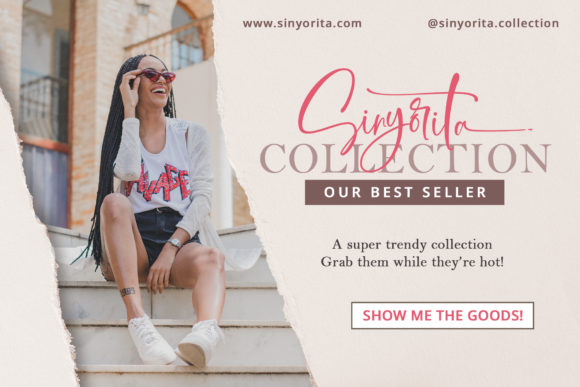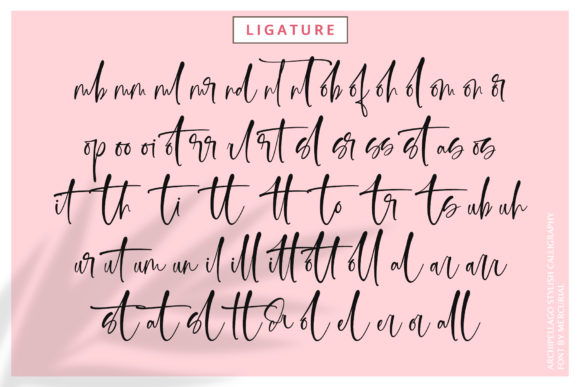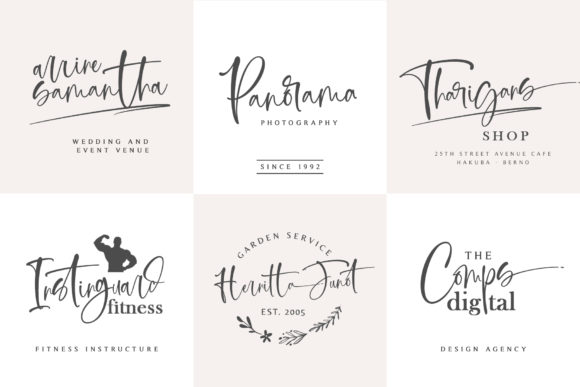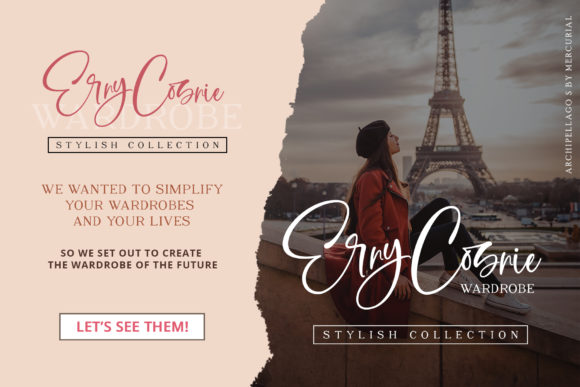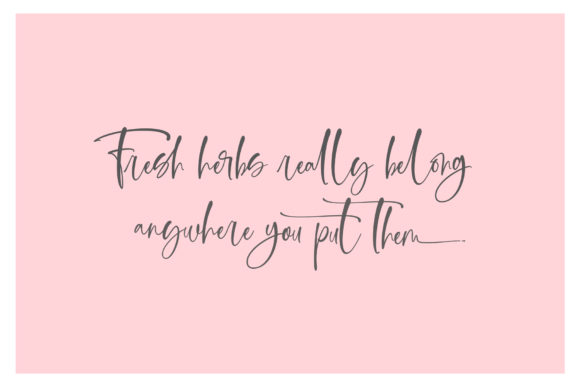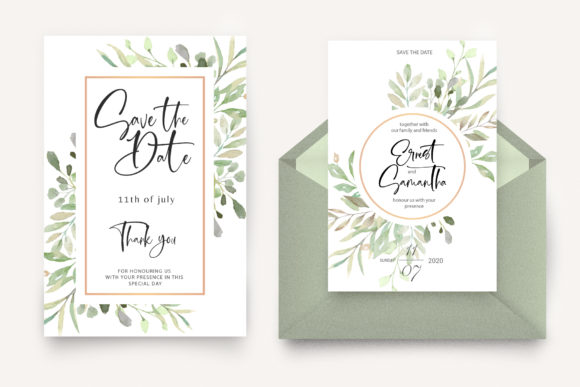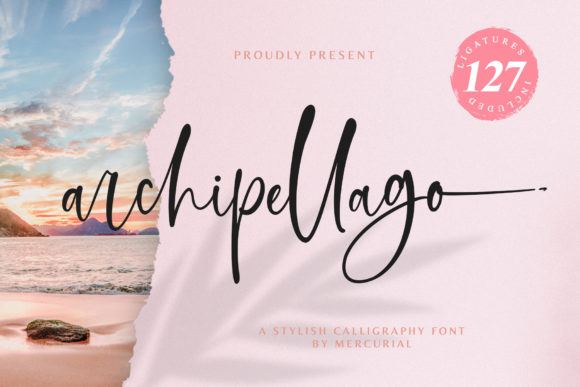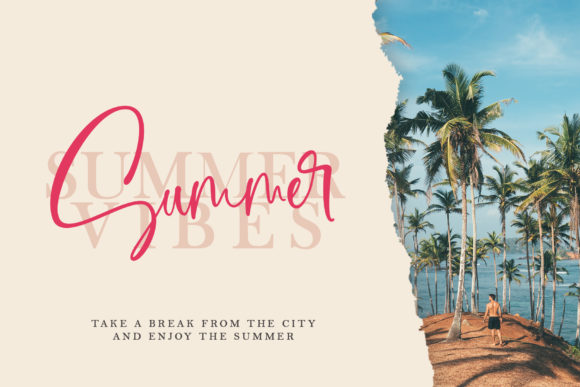
Archipellago
About Archipellago Font
Archipellago is a fashionable handwriting font, which looks like a signature. Fall in love with its exciting look & feel! Add this lovely freebie to your creations and take your designs to the next level!